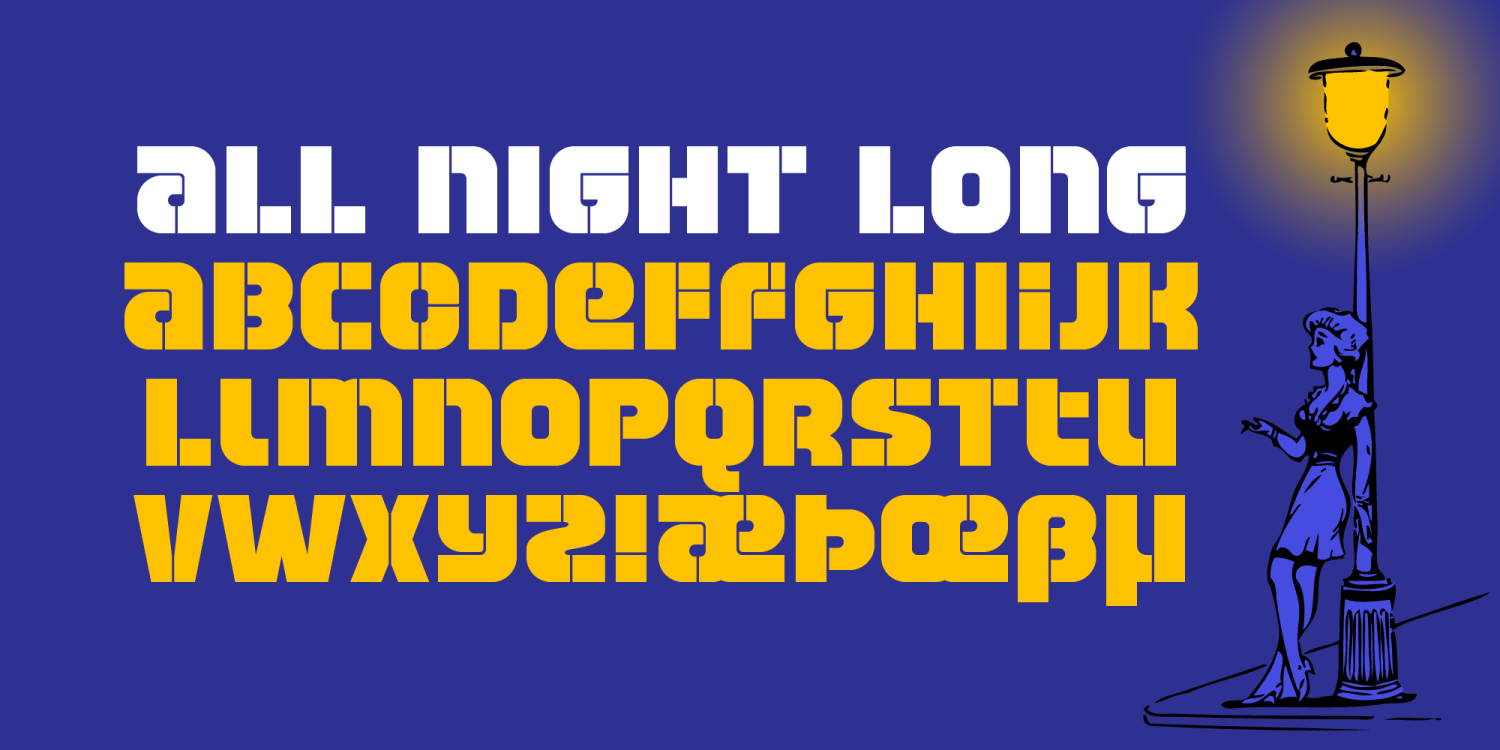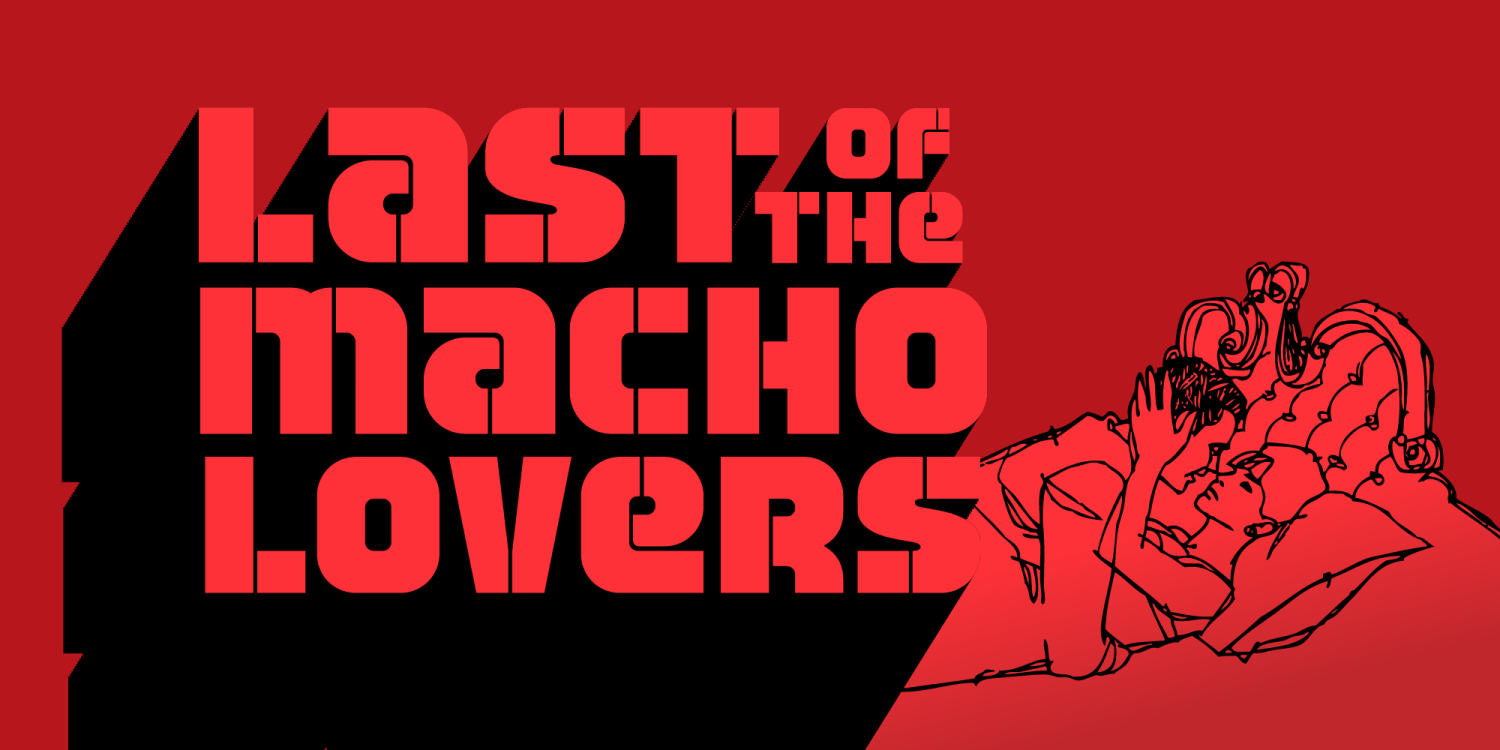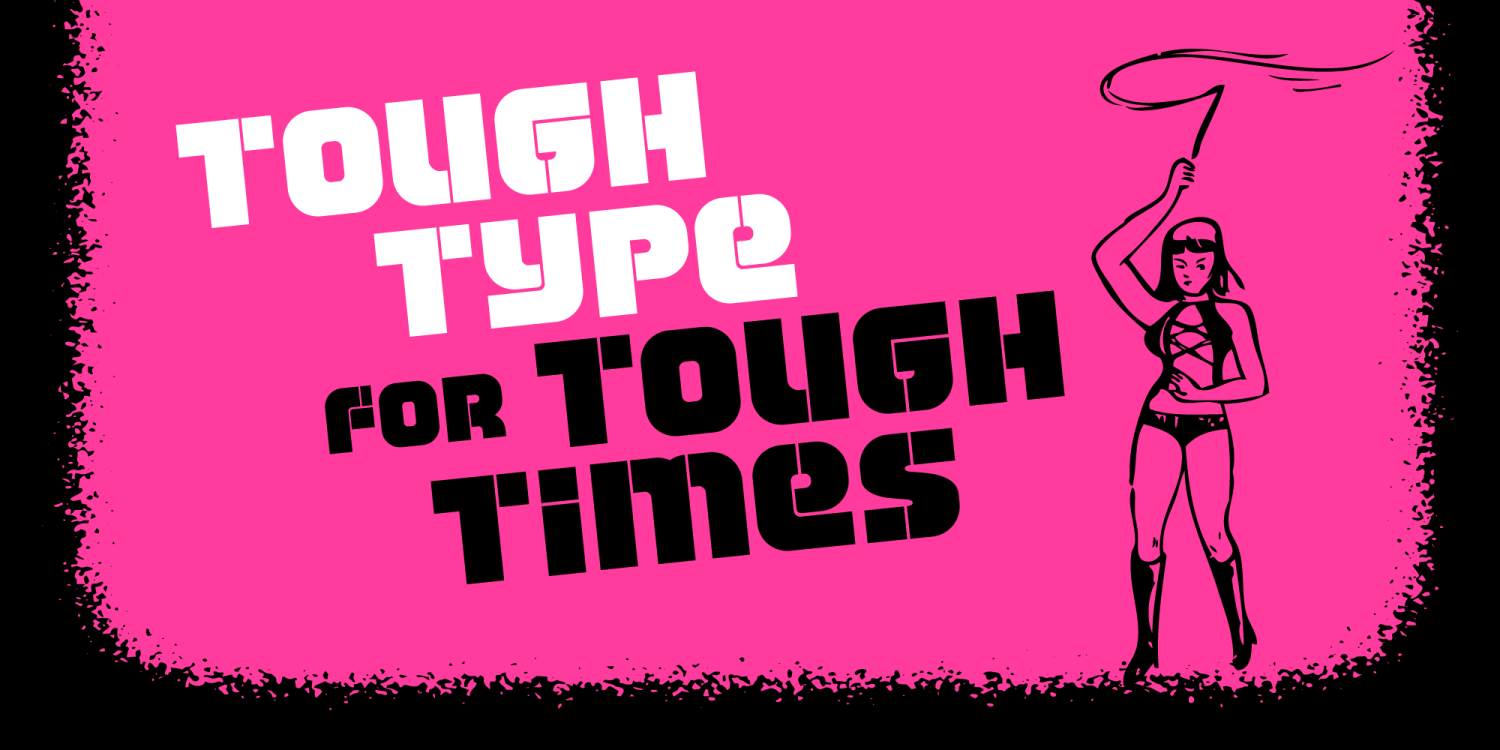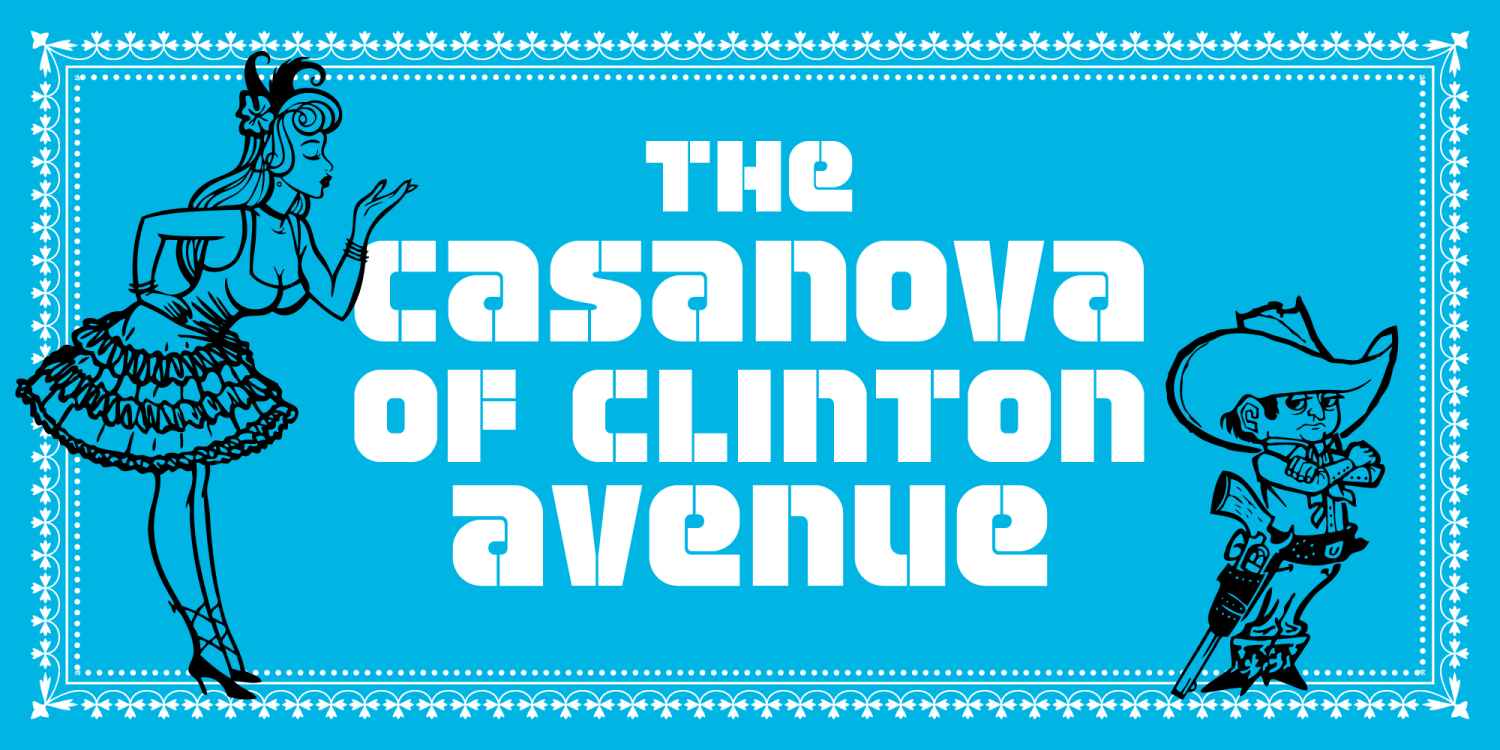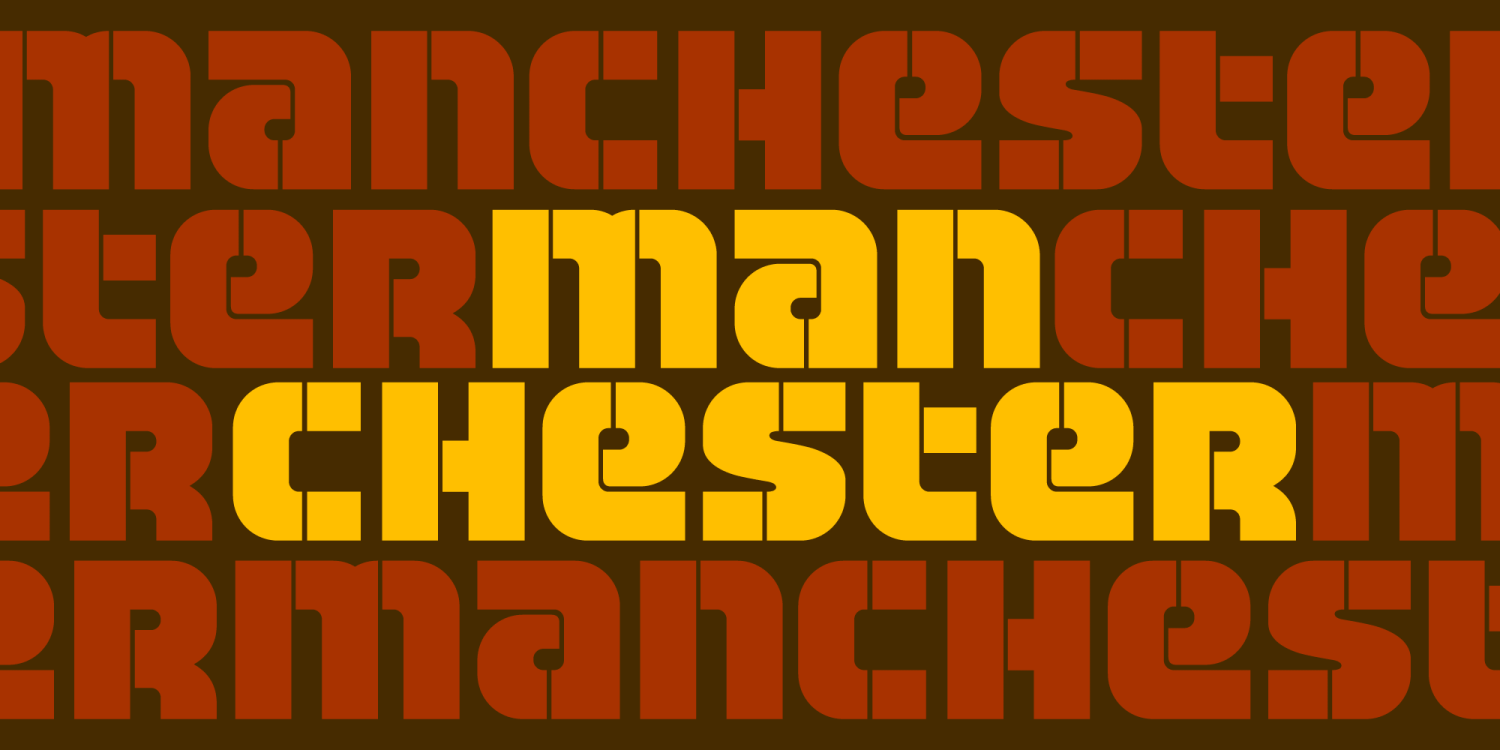
About Manchester
This is probably the manliest font you've ever laid your eyes on. Look at that big stocky lettering. Gentlemen, this is the type of font that gets the ladies. It lets them know you're that rugged provider-type that will be out chopping wood in…